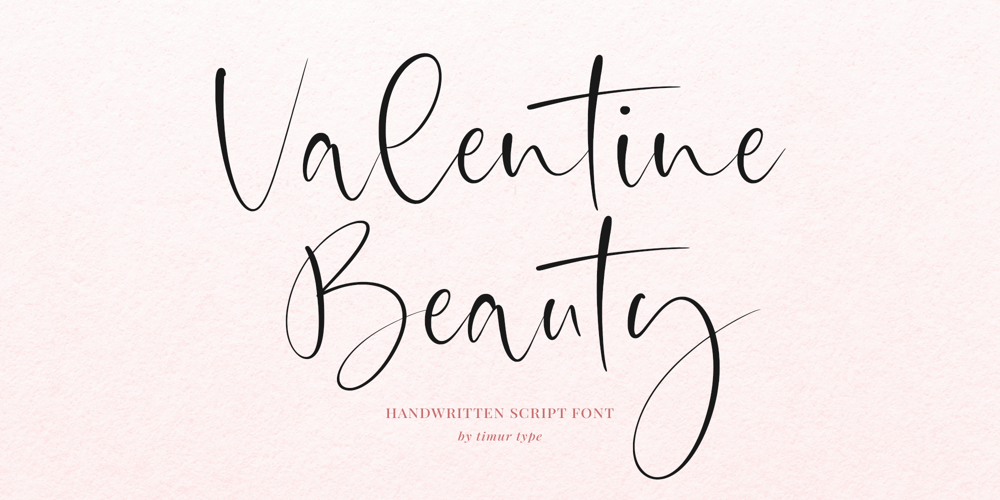
Valentine Beauty Font Family was designed by Wara Sigit Tri Pamungkas and published by Timurtype. Valentine Beauty contains 1 styles and family package options. Introducing by Timur typeProudly Present, Valentine Beauty A Handwritten FontValentine Beauty is perfect for product packaging, branding project, megazine, social media, wedding, or just used to express words above the background.Valentine Beauty also multilingual support.Enjoy the font.Thank you!